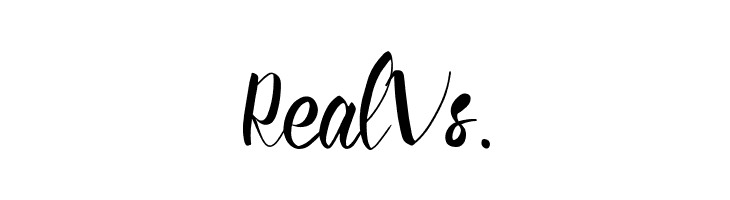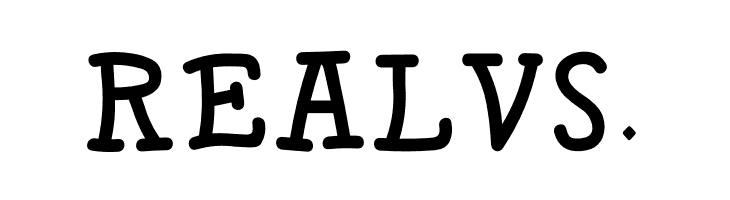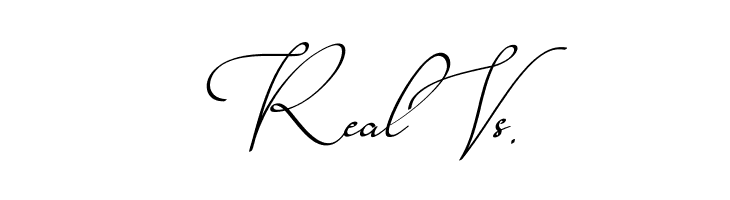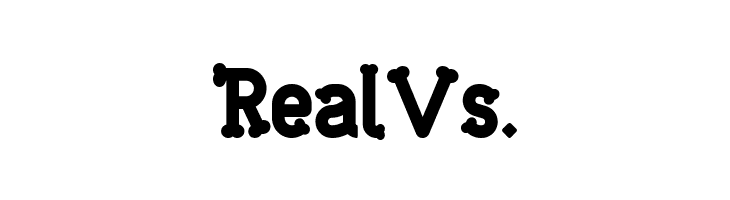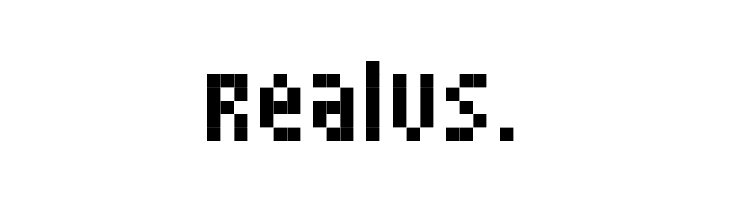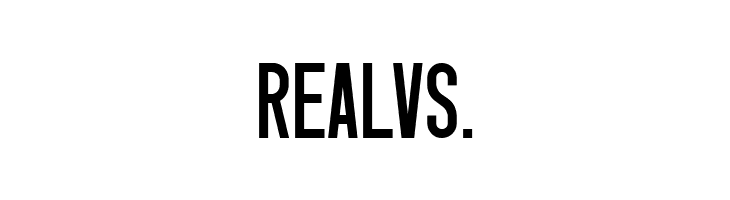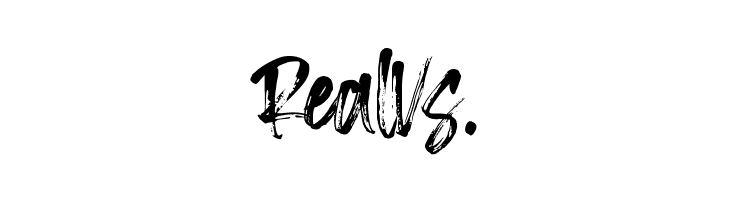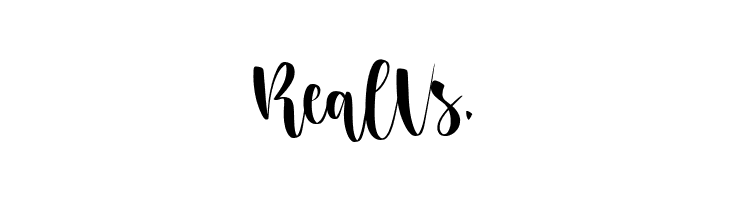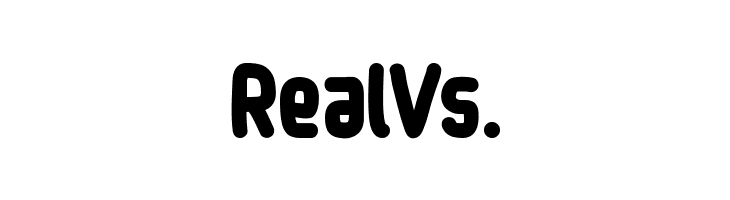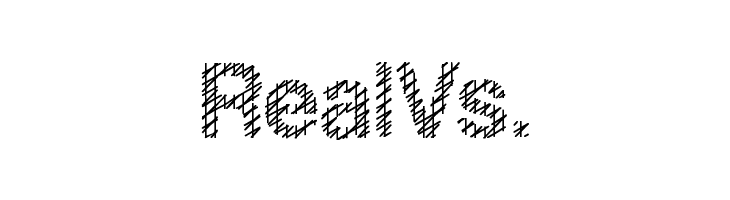
An elegant and flowing script font with intricate, decorative letterforms.
A bold, playful handwritten font with a dynamic and energetic style.
A bold, tall, and narrow font with a modern and impactful style.
A bold, dynamic font with a slanted, energetic design.
A bold, angular font with a dynamic, rebellious style.
A futuristic, segmented font with an oblique slant and digital appearance.
A bold, brush-style font with an energetic and artistic flair.
A decorative font using human figures to form each letter, offering a unique and artistic style.
A playful, hand-drawn font with heart motifs and a whimsical style.
A flowing, cursive font with elegant, connected letters and a natural handwriting style.
A playful, handwritten font with a casual and dynamic style.
A bold, geometric font with strong, block-like characters and modern flair.
A modern, waveform-inspired font with jagged, angular lines.
A bold, rounded font with a playful and friendly style.
A sophisticated script font with elegant, flowing strokes and artistic flourishes.
A bold, hand-drawn font with a single-stroke, expressive style.
A bold, modern sans-serif font with clean lines and a slightly condensed style.
An ornate blackletter font with bold, intricate designs and sharp, angular edges.
A lively and elegant script font with fluid, connected letterforms and expressive strokes.
A bold, playful font with rounded, skeletal-style characters.
A bold, sketch-like Gothic font with intricate, hand-drawn details.
A playful and eclectic font with a mix of artistic and whimsical styles.
A whimsical and artistic font featuring playful, hand-drawn illustrations.
A bold, brush-style font with dynamic and expressive strokes.